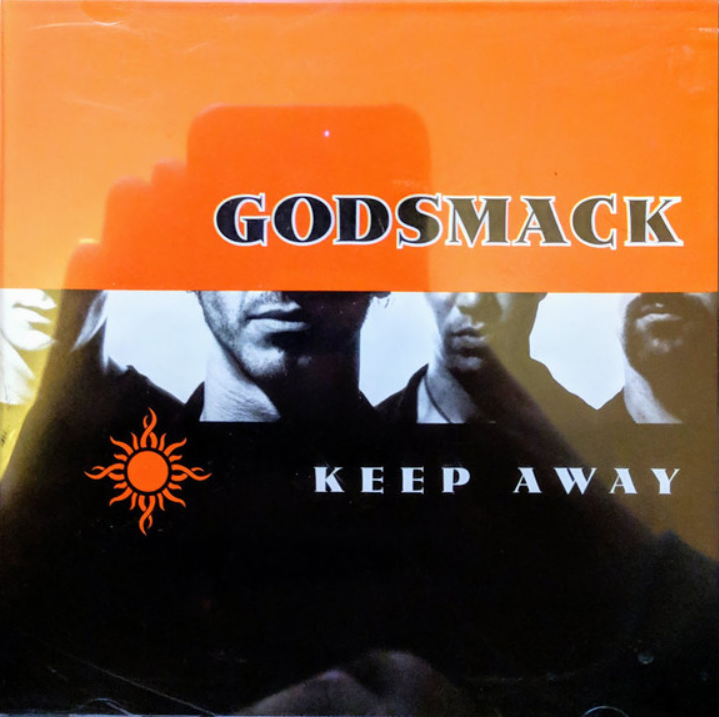
Keep Away (Godsmack) Font
Fonts in UseKeep Away is a song by American rock band Godsmack, released in 1999 as the lead single from their debut studio album Godsmack.
The cover artwork font is probably Metropolis, a headline typeface created by Willy Schwerdtner in 1928 and has been digitized by foundries like Monotype and CastleType.